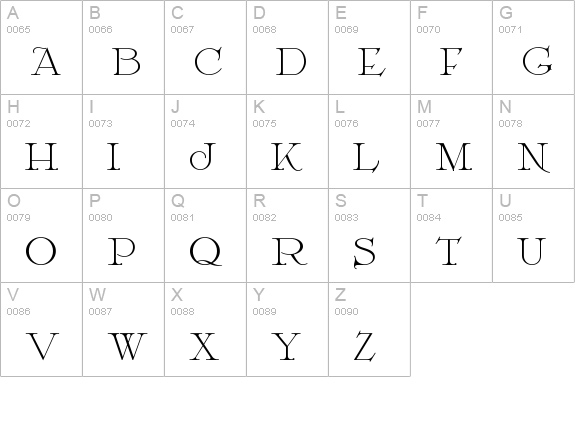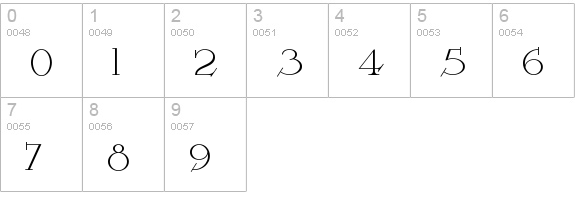
ErehwonRomanNF Font Details
ErehwonRomanNF is a timeless and elegant serif font that exudes sophistication and charm. With its classic letterforms and subtle details, this font is perfect for conveying a sense of tradition and refinement in your designs. The clean lines and balanced proportions of ErehwonRomanNF make it a versatile choice for a wide range of projects, from branding to editorial design. What makes ErehwonRomanNF even more appealing is that it is available for free download at FontsMarket.com. This means that you can easily access this high-quality font without any cost, making it a valuable addition to your font library. Whether you are a seasoned designer or just starting out, ErehwonRomanNF is a must-have font that will elevate your work and help you achieve professional results. Get your hands on this exquisite font today and bring a touch of elegance to your projects.